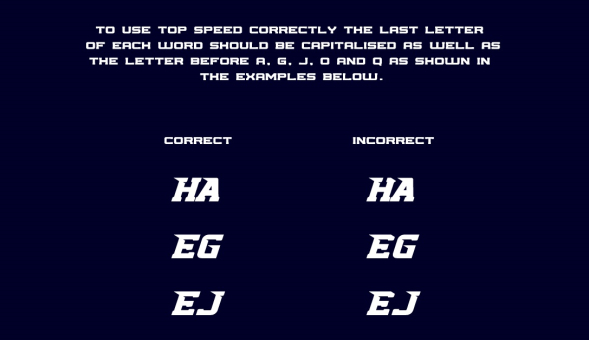
Top Speed Free Font
Top Speed is a bold italic font ideal for various sports themes. The font invokes motion and action which are elements that are not always easily communicated in typography presentation.